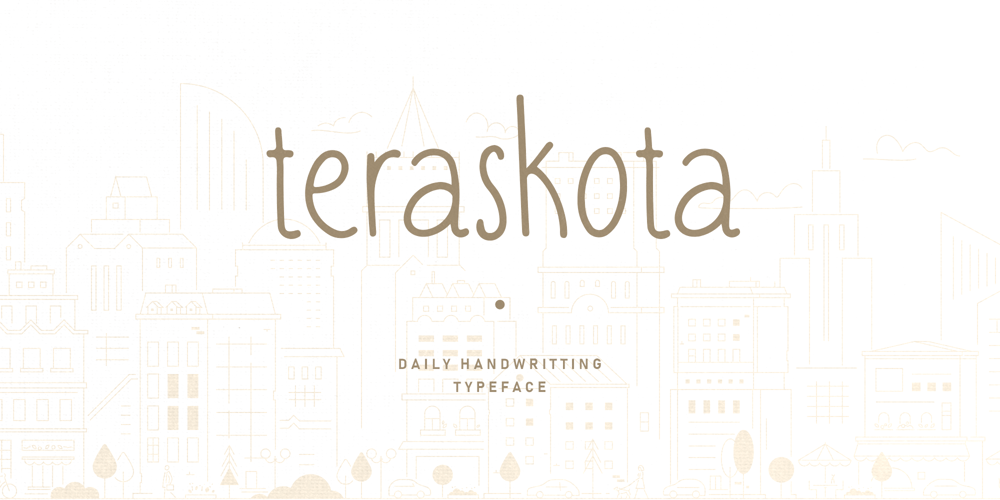
Teraskota
Teraskota font
Teraskota Font Family was designed by Gholib Tammami and published by Gholib Tammami. Teraskota contains 1 styles and family package options. Teraskota is a cute handwritten font that infuses a sweet and cheerful vibe into every letter. With its adorable and friendly design, Teraskota is perfect for creative projects like greeting cards, children’s branding, and charming event decorations.